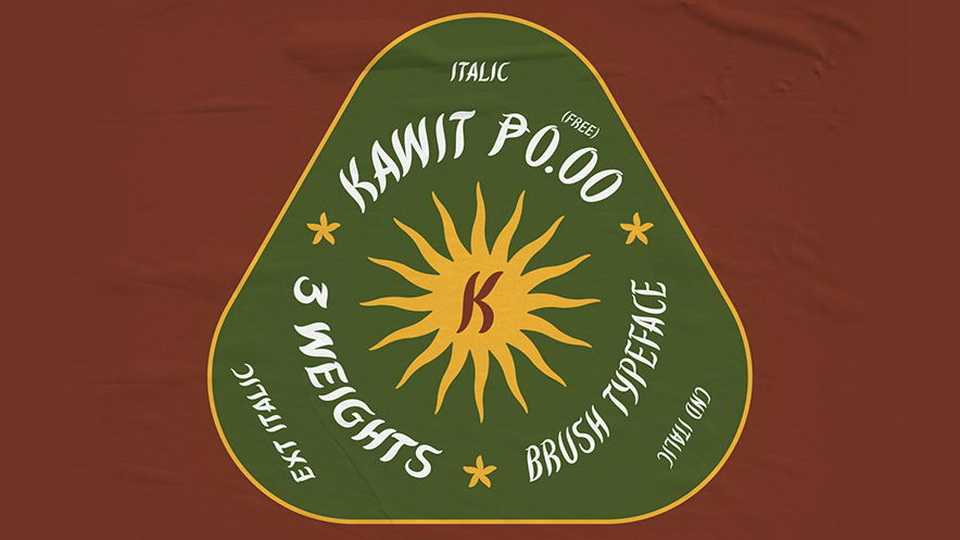
Download Kawit typeface, a brush italic font family in three weights, inspired by the curves and swashes of old lettering seen in the Philippines.
Designer: Aaron Amar